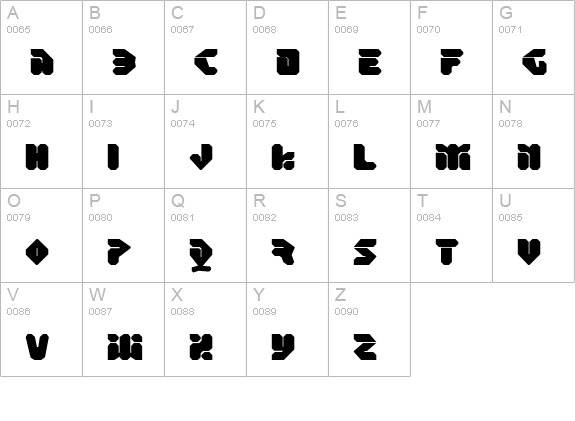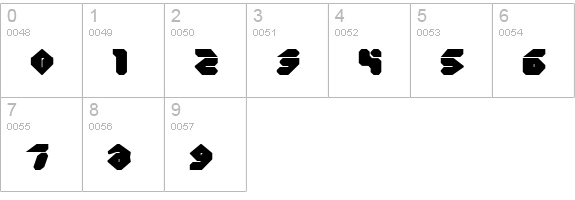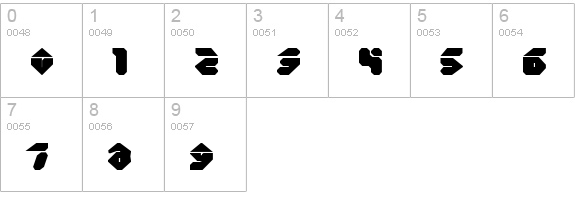
EraserAngled Font Details
EraserAngled font is a unique and playful typeface that brings a modern twist to traditional typography. Its angled design adds a dynamic and energetic touch to any project, making it perfect for creative and eye-catching designs. The font's quirky charm and bold strokes make it stand out, whether used for headlines, logos, posters, or social media graphics. Best of all, EraserAngled font is available for free download at FontsMarket.com. This means that you can easily access this captivating typeface and incorporate it into your design projects without any cost. Don't miss out on the opportunity to add a touch of fun and personality to your designs with EraserAngled font - get your free download today!